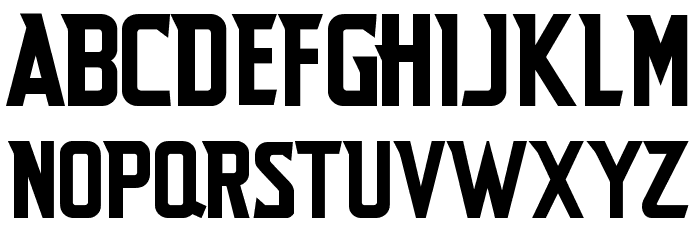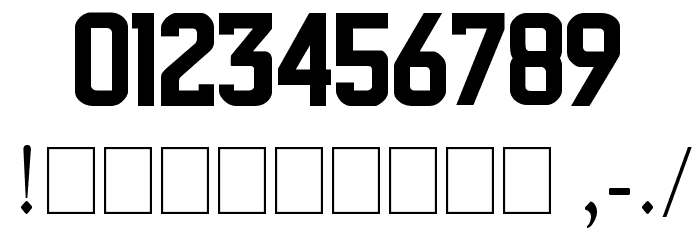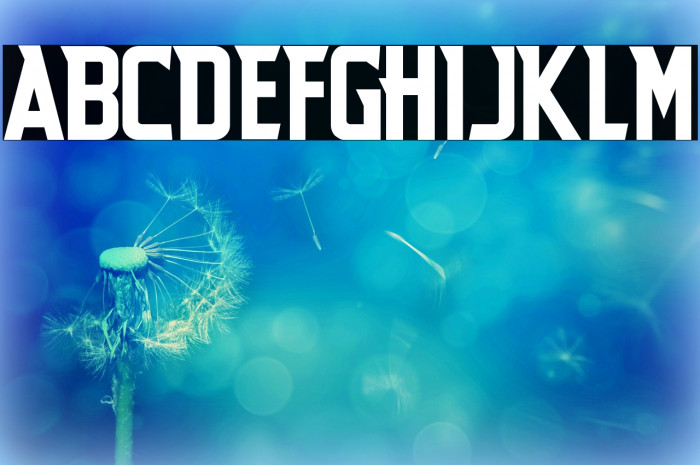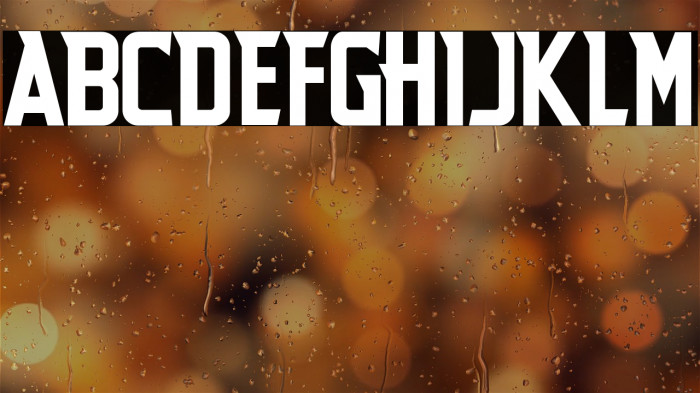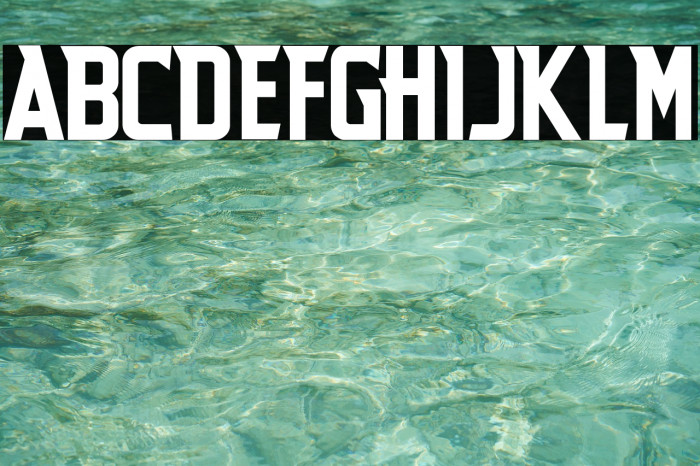
NCAA Southern Miss 1 Font
This font features a bold and impactful design with strong geometric shapes and sharp angles. The uppercase letters are particularly striking, with a uniform height and consistent stroke width that conveys a sense of strength and stability. The numbers are equally bold, maintaining the same geometric style, making them highly legible and suitable for various applications. The font's overall appearance is modern and assertive, ideal for making a statement. The absence of lowercase letters and limited special characters suggests a focus on headlines or display use.
Bold, geometric font with strong, angular shapes ideal for impactful headlines.
- Proposed Projects: This font is perfect for sports branding, posters, and any project requiring a bold, modern typeface.